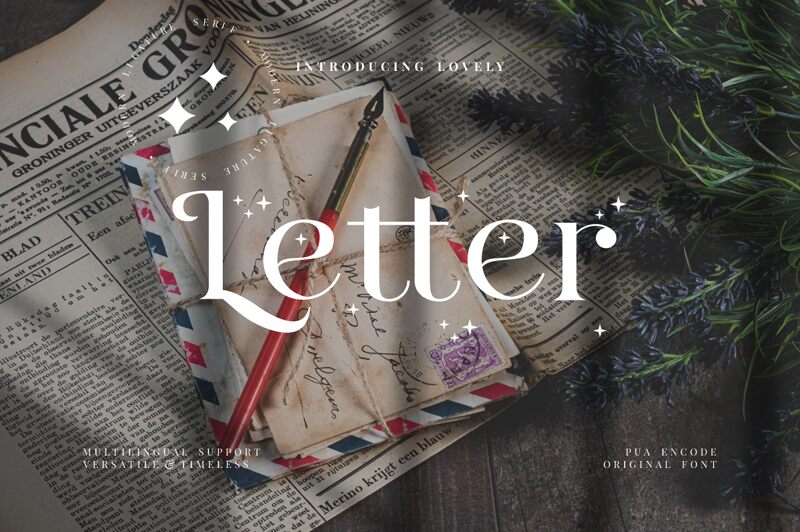
Letter, a captivating serif font crafted by FinTypeStudio, exudes a timeless elegance. With its refined, sophisticated strokes and harmonious proportions, this font effortlessly conveys a sense of tradition and refined sophistication. The delicate balance of subtle serifs and clean, modern lines creates a visually striking and versatile typeface, seamlessly bridging the gap between classic and contemporary design aesthetics.
The distinctive character of Letter makes it a compelling choice for a wide range of applications, from high-end editorial layouts to elegant branding and packaging designs. Its legibility and refined aesthetic lend themselves particularly well to invitations, book covers, and other editorial projects where a touch of timeless sophistication is desired. Versatile and adaptable, Letter is a font that can elevate the visual impact of any design, leaving a lasting impression on the viewer.